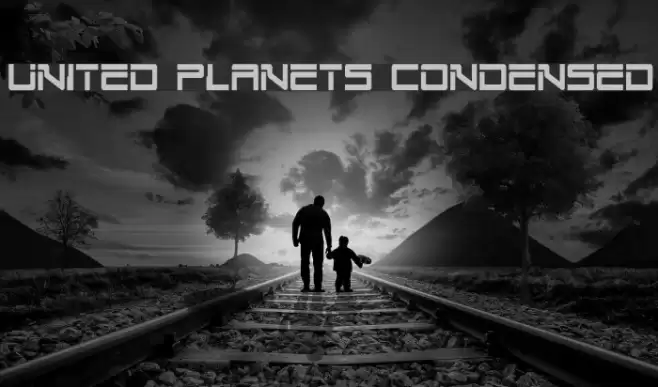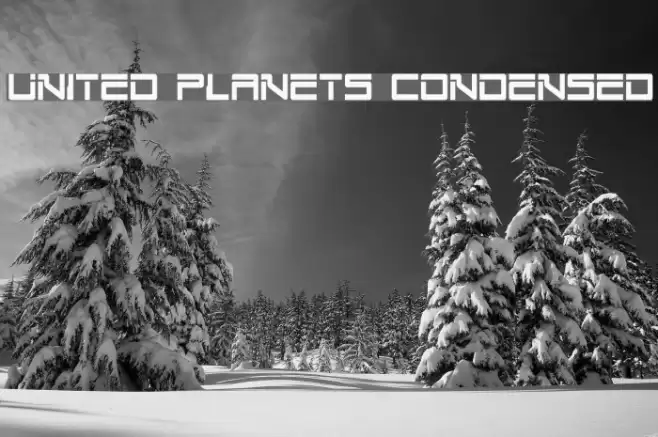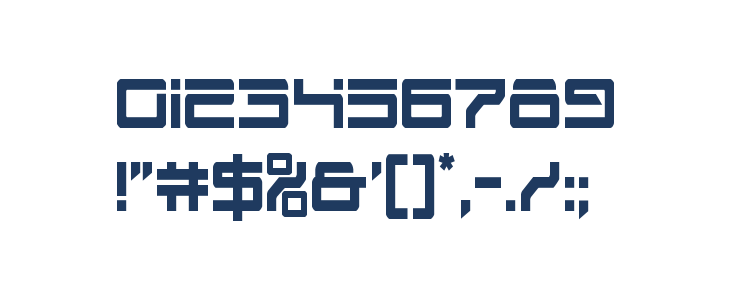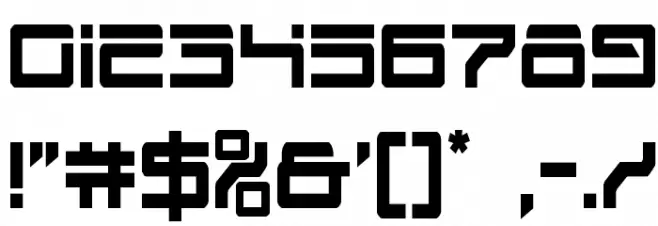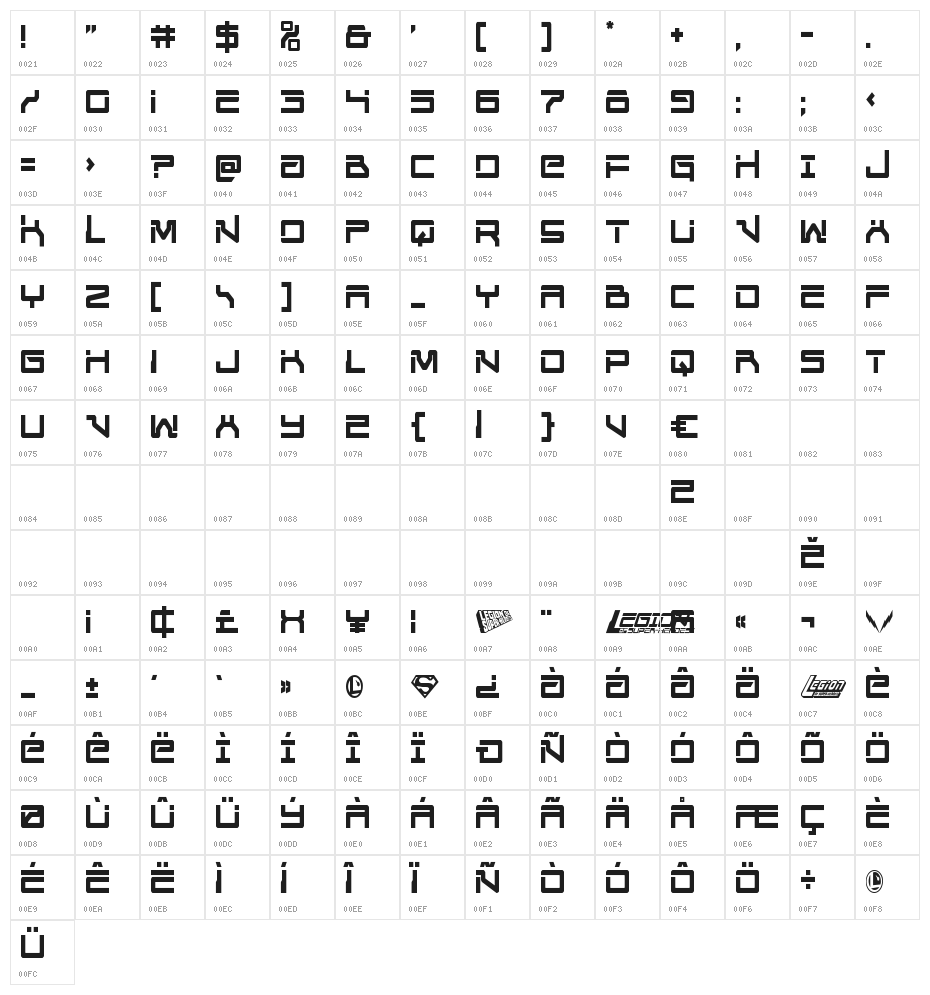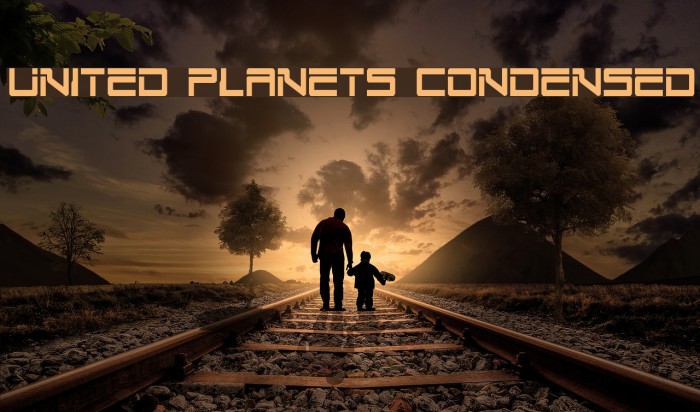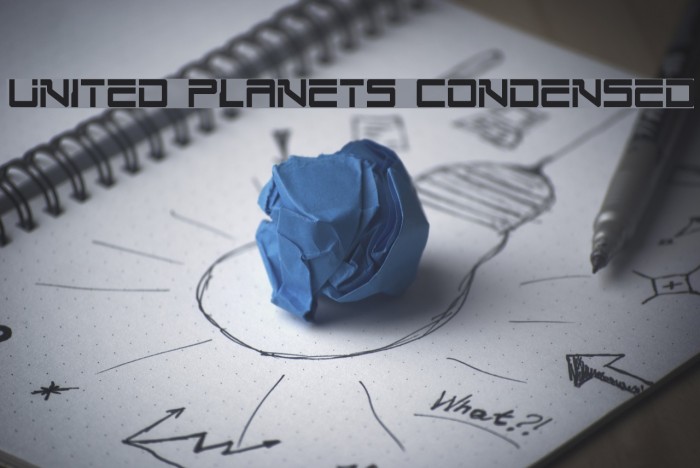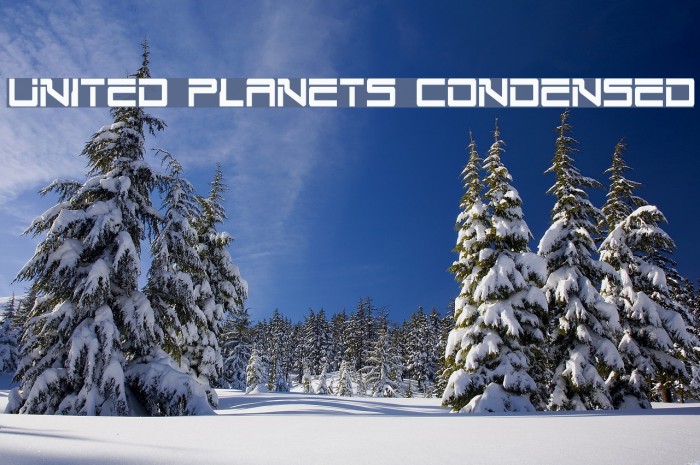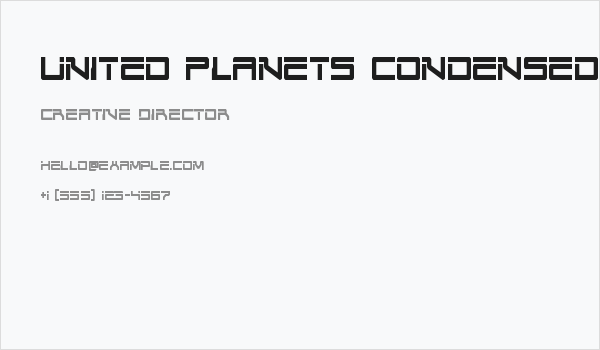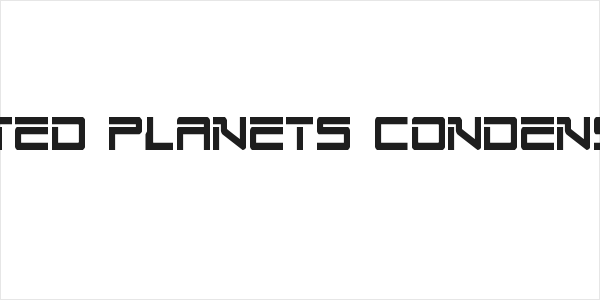
United Planets Condensed Font
United Planets Condensed Description
This font features a futuristic and geometric design, characterized by its bold and angular letterforms. The characters are constructed with straight lines and sharp angles, giving it a modern and technological appearance. The uppercase and lowercase letters maintain a consistent style, with a condensed width that enhances its sleek and compact look. The numerals and special characters follow the same design principles, ensuring uniformity across all glyphs. This font's unique style makes it stand out, suitable for projects that require a modern and edgy aesthetic.
A futuristic, geometric font with bold, angular letterforms and a condensed width from Uncategorized fonts.
- Proposed Projects: Ideal for sci-fi themed designs, technology branding, video game titles, and futuristic posters.